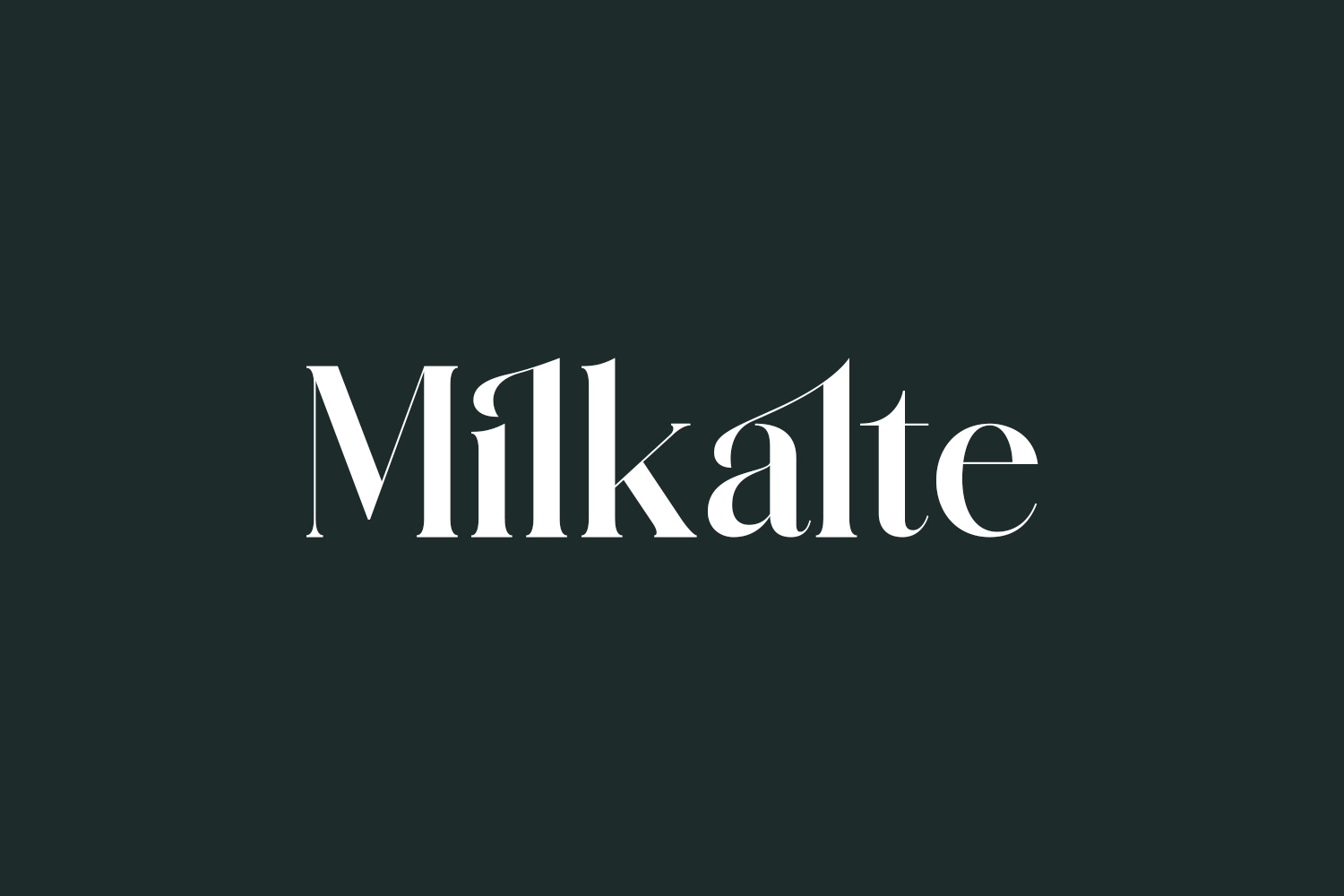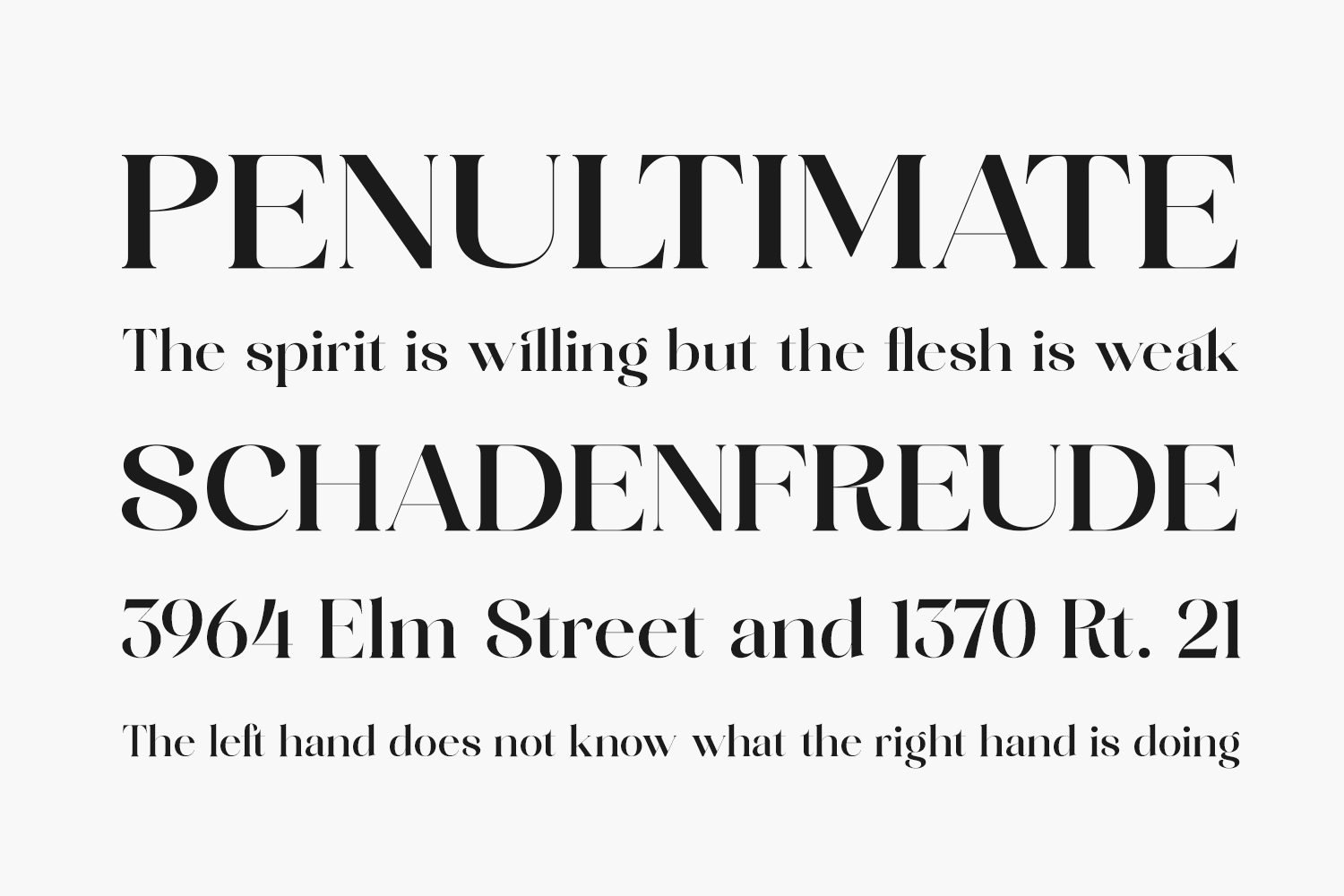
Discover Milkalte Free Font, a serif font that seamlessly blends modernity with classic elegance, presenting a unique and sophisticated style. Ideal for crafting luxurious and refined designs, this typeface is perfect for creating stunning logos, captivating book or movie titles, fashion brand identities, magazine layouts, apparel designs, lettering projects, inspiring quotes, and beyond. Elevate your creative ventures with Milkalte’s distinctive charm and timeless appeal. Milkalte Free Font was designed by Storytype Studio and is free for personal use only. Please purchase the full version for commercial use.